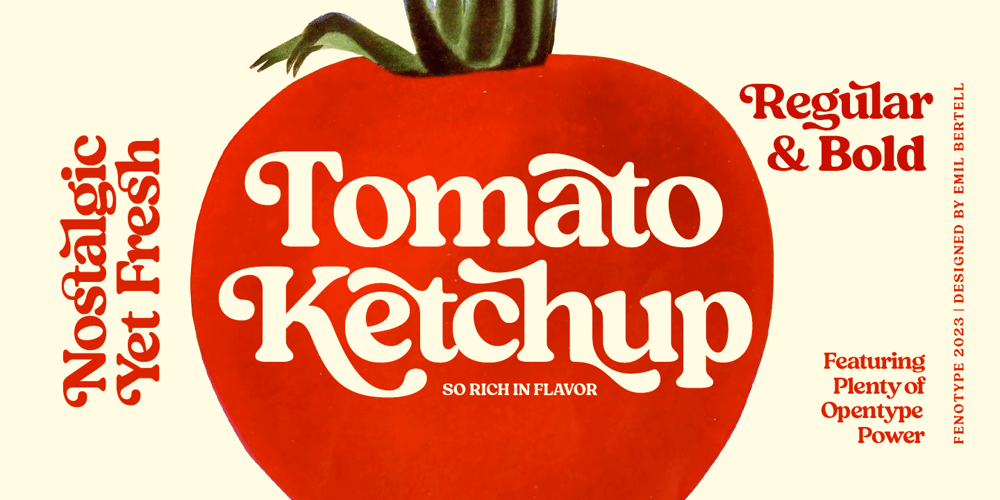
Tomato Ketchup Font Family was designed by Emil Karl Bertell and published by Fenotype. Tomato Ketchup contains 2 styles and family package options. Tomato Ketchup is a bold vintage style serif font with a nonchalant charm and sturdy confidence in. Tomato Ketchup has a recognizable flavor and a reminiscence of familiar warm nostalgic feeling. The font is equipped with Contextual, Swash, Stylistic and Titling alternates as well as Discretionary Ligatures and even more extra alternates. Tomato Ketchup is a great typeface for contemporary graphic design with that certain feeling of familiarity and friendliness.